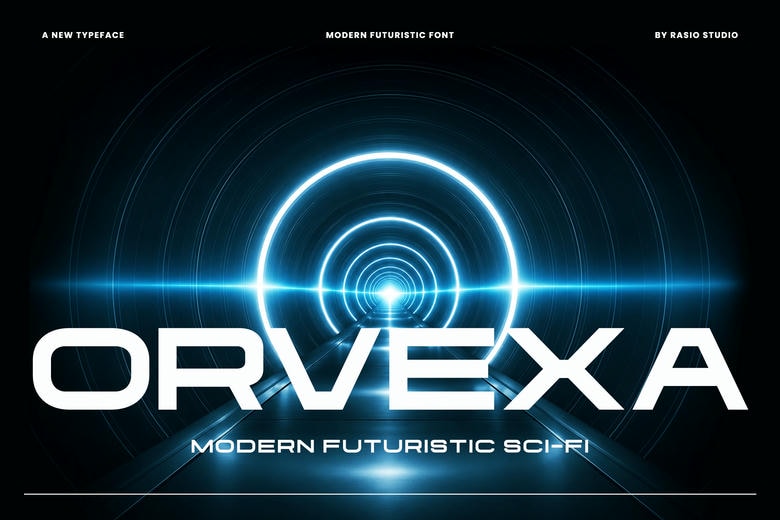
Orvexa Font
Orvexa is a bold geometric display typeface inspired by advanced technology, futuristic architecture, and sci-fi interfaces. With sharp angles, wide shapes, and carefully crafted letters, it gives any project a strong, modern, and innovative look.
Its unique design uses clean horizontal ends, squared curves, and balanced geometric shapes to create a sleek, industrial style. It also stays easy to read, even at large sizes.
Relevance and Use Case: It is perfect for projects that require a sleek technology look. Orvexa works well for projects that need a modern, tech-inspired look with a futuristic feel. It’s a great fit for tech startups, gaming brands, esports teams, software, AI products, robotics, sci-fi media, digital launches, motion graphics, posters, packaging, website headers, presentations, and branding where innovation and high-tech style matter most.
Orvexa Display Font